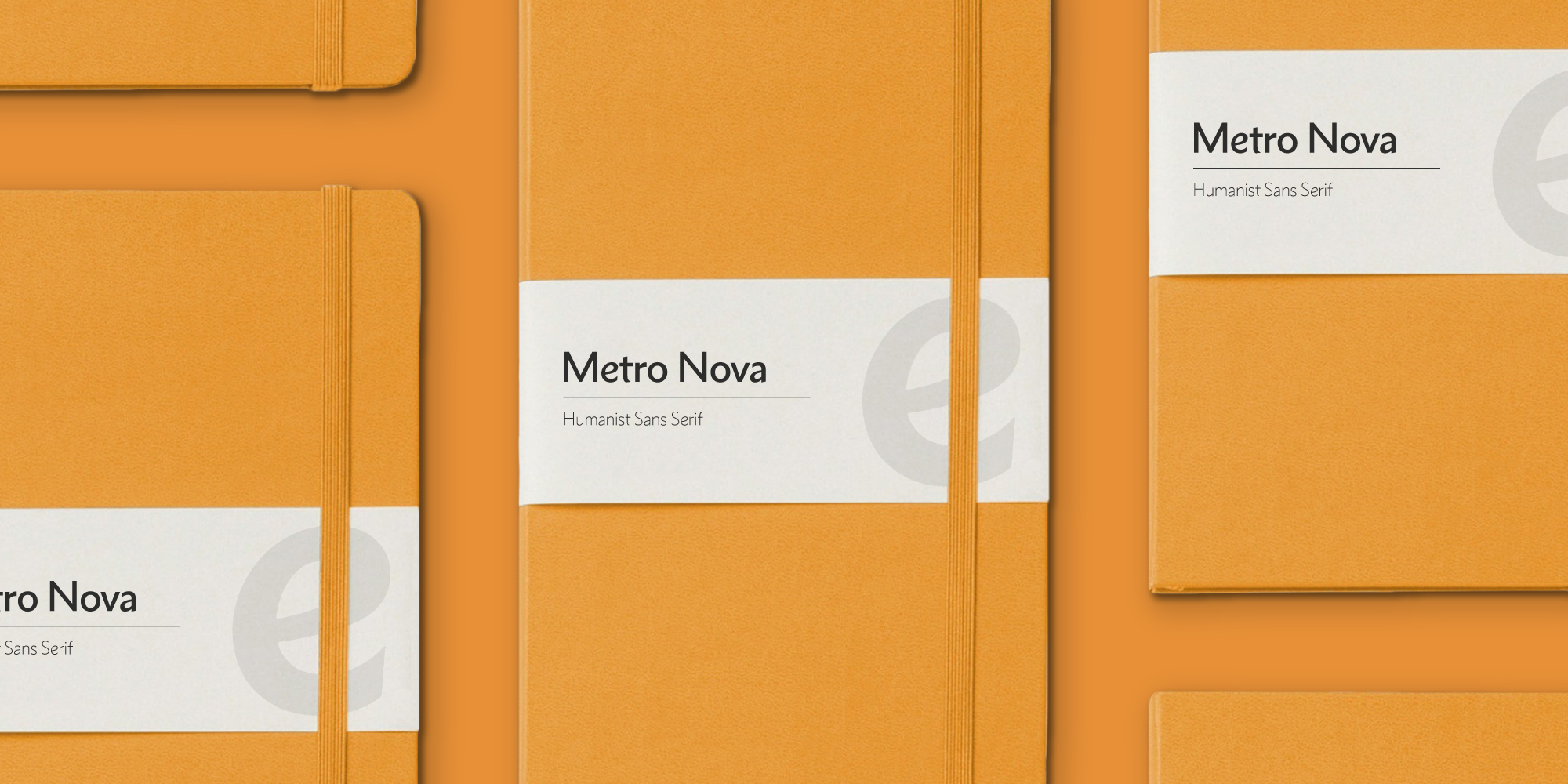
Metro Nova Font is perfect for urban transit systems, modern city branding, contemporary architectural signage, sleek corporate identities, metropolitan lifestyle magazines, cutting-edge tech interfaces, minimalist product packaging, and progressive government communications.
Metro Nova Font is exciting because it captures the dynamic energy and sophisticated efficiency of modern metropolitan life through its clean, geometric character design that perfectly embodies the precision and forward-thinking spirit of contemporary urban design. Its streamlined aesthetics and cosmopolitan appeal make it the ideal choice for brands that want to communicate innovation, connectivity, and the progressive values of modern city living.
The Metro Nova Font family includes multiple urban-inspired variations: Metro Nova Thin, Metro Nova Light, Metro Nova Regular, Metro Nova Medium, Metro Nova Bold, Metro Nova Black, and Metro Nova Condensed, along with extended character sets and multilingual support, providing designers with comprehensive tools for creating sophisticated metropolitan brand experiences.
When exploring contemporary urban typography solutions, Metro Nova Font Free Download emerges as the premier choice for designers working on modern city-focused and metropolitan lifestyle projects. This exceptional typeface embodies the essence of urban sophistication while offering the technical precision that contemporary municipal and corporate brands require. The font's clean geometry and metropolitan character create immediate connections with audiences who appreciate modern city living and progressive design aesthetics.
Professional designers consistently rely on Metro Nova Font for projects requiring genuine urban sophistication and contemporary appeal. Its expertly engineered letterforms feature modernist influences that work exceptionally well in both large-scale public wayfinding systems and intimate digital interface applications. The font's ability to convey efficiency and innovation while maintaining perfect readability makes it invaluable for comprehensive brand identity systems in the transportation, municipal services, and metropolitan lifestyle sectors.
Whether you're developing transit authority identities, creating smart city communication materials, or designing urban development presentations, Metro Nova Font delivers the authentic metropolitan character and progressive appeal that resonates with audiences who embrace modern urban living and technological advancement. Its contemporary excellence and urban sophistication ensure your projects communicate cutting-edge municipal values while maintaining professional standards that attract forward-thinking citizens and urban professionals.